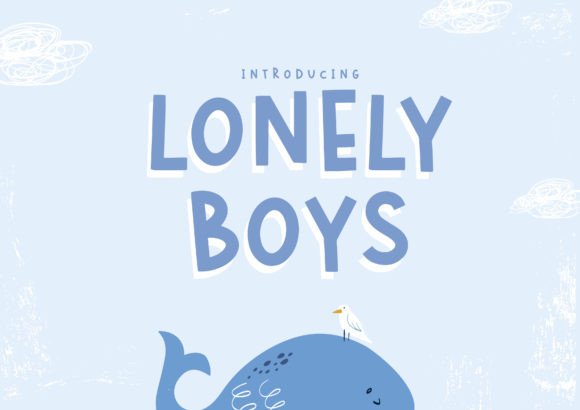
Step into a world of creative charm with Lonely Boys Font, a display font brimming with whimsy and boldness. This unique font, crafted by DCLL Studio, is a visual symphony, a dance of lines and curves that will captivate your senses. Its playful and friendly nature makes it the perfect choice for crafting projects, titles, and displays that demand attention.
Lonely Boys Font is not just another font; it's an experience. Its bold and confident strokes exude a sense of fun and coolness, making it ideal for capturing the essence of unique and creative ideas. Picture your words dancing across the page, each letter a work of art, captivating your audience and leaving a lasting impression.
With Lonely Boys Font, you have the power to transform the ordinary into the extraordinary. Create letterheads that command attention, titles that ignite curiosity, and stationery that reflects your vibrant personality. Its original and captivating look will add a touch of magic to any project, making it stand out from the crowd.
Whether you're a seasoned designer or just starting your creative journey, Lonely Boys Font is the perfect companion. Its versatility knows no bounds, adapting seamlessly to a wide range of projects. Let your imagination soar as you explore endless possibilities, from invitations and posters to social media graphics and website designs.